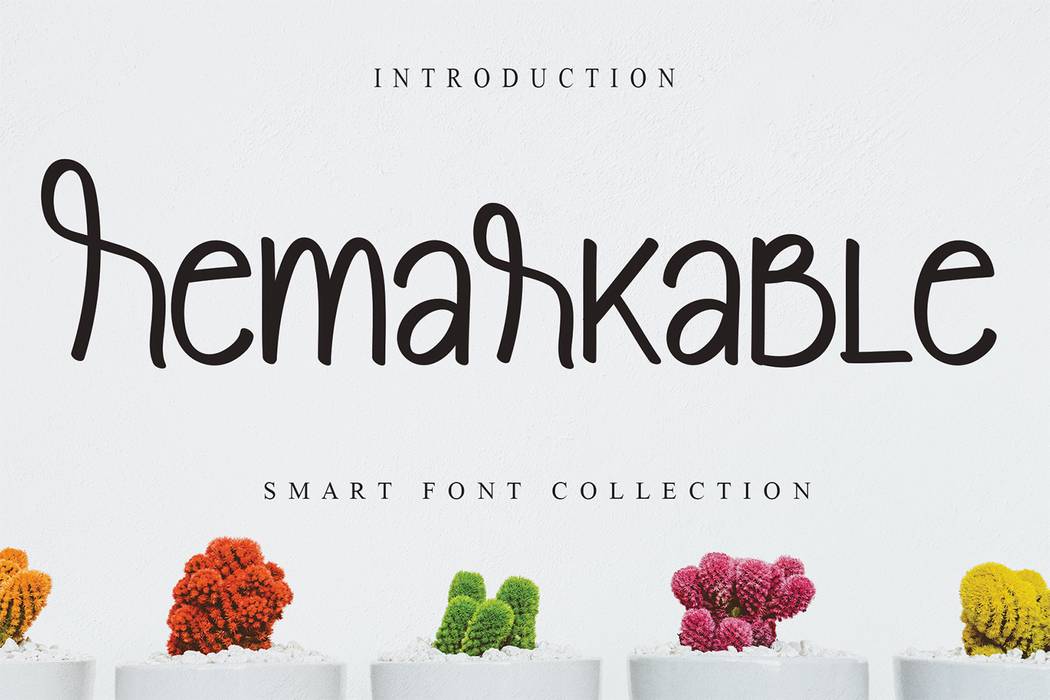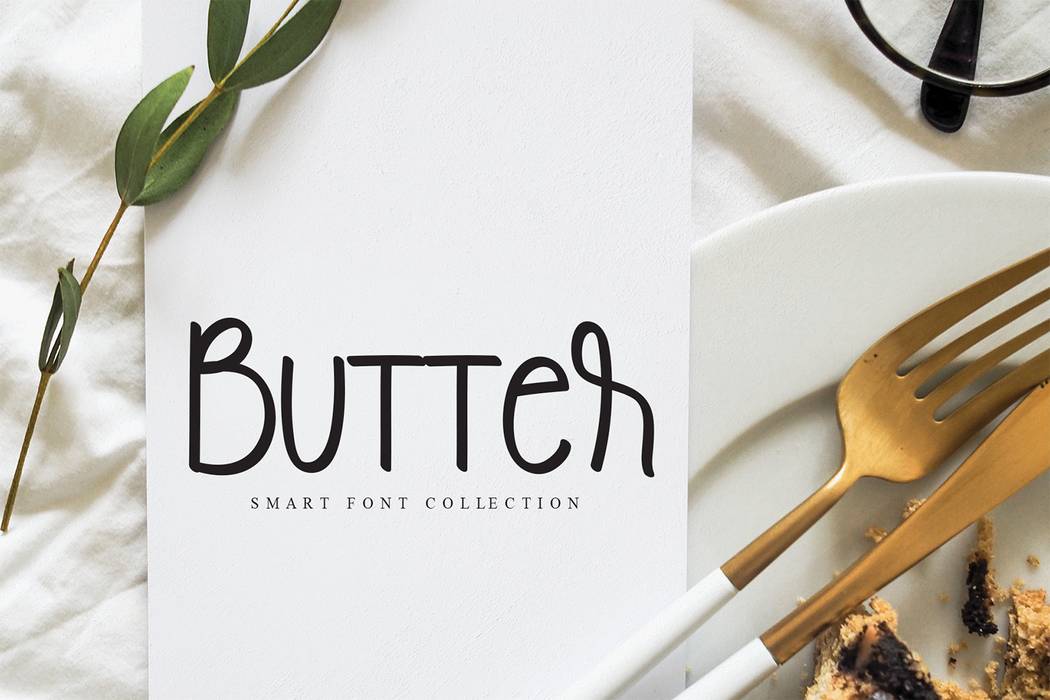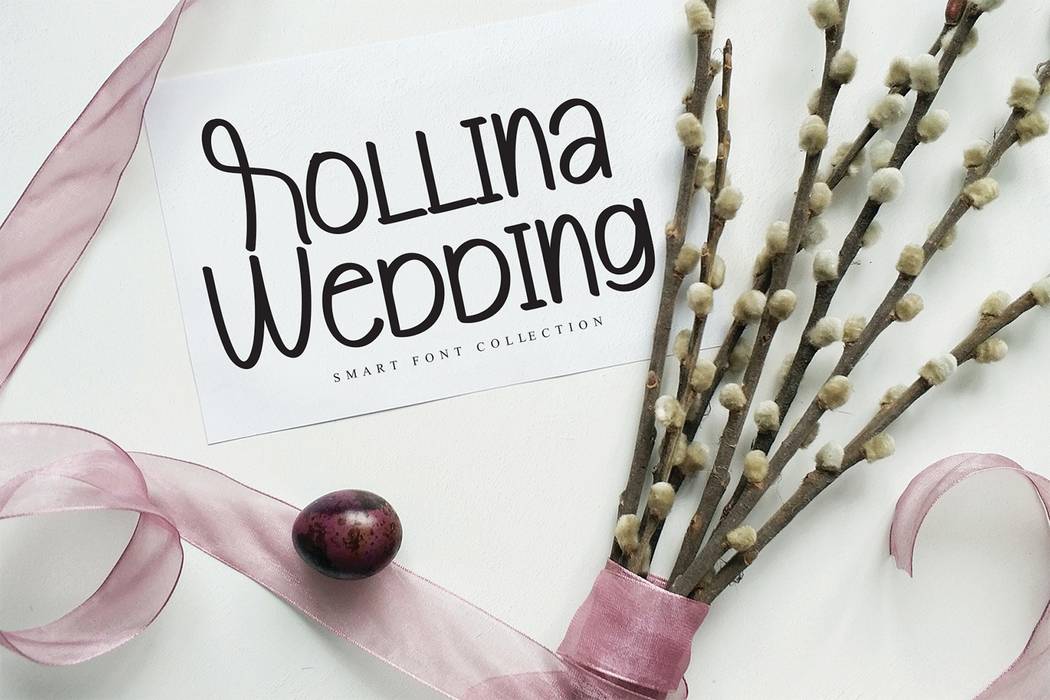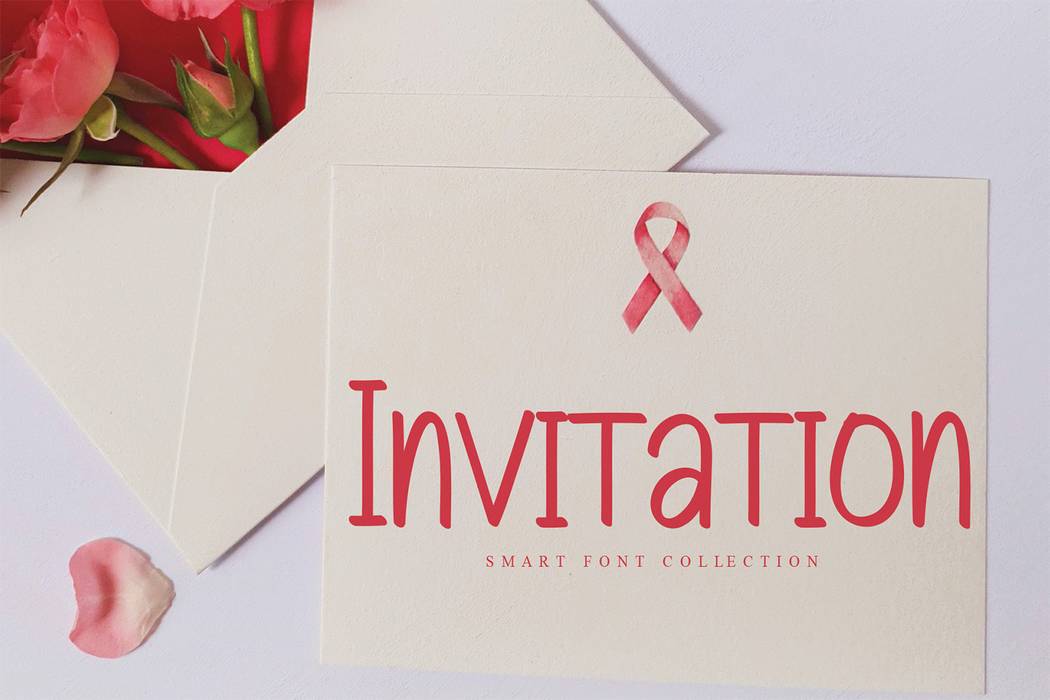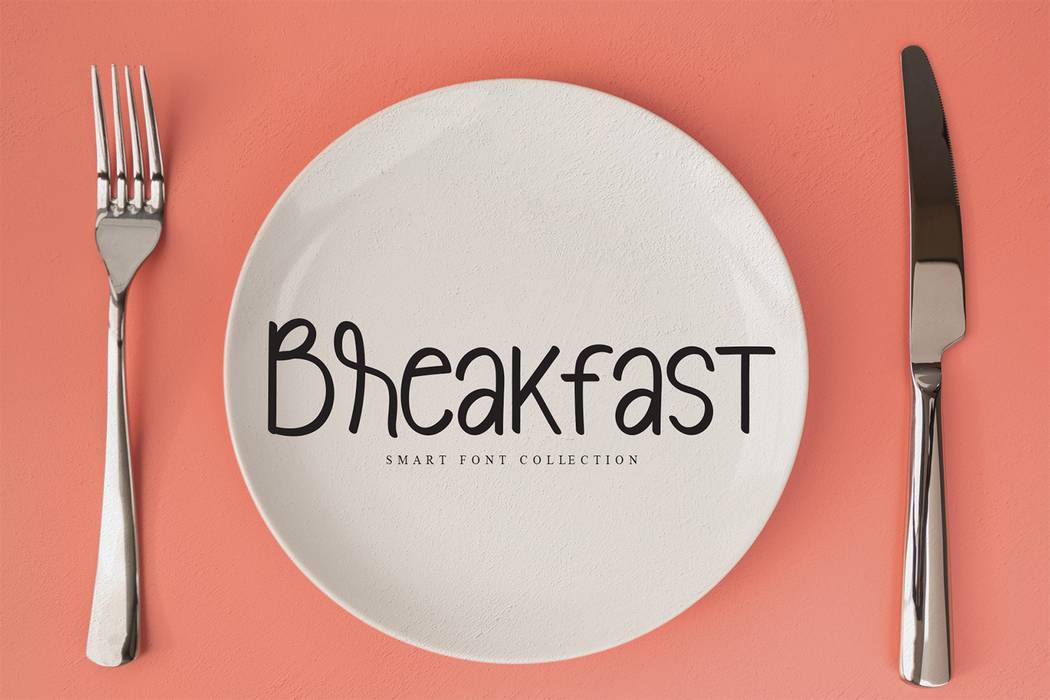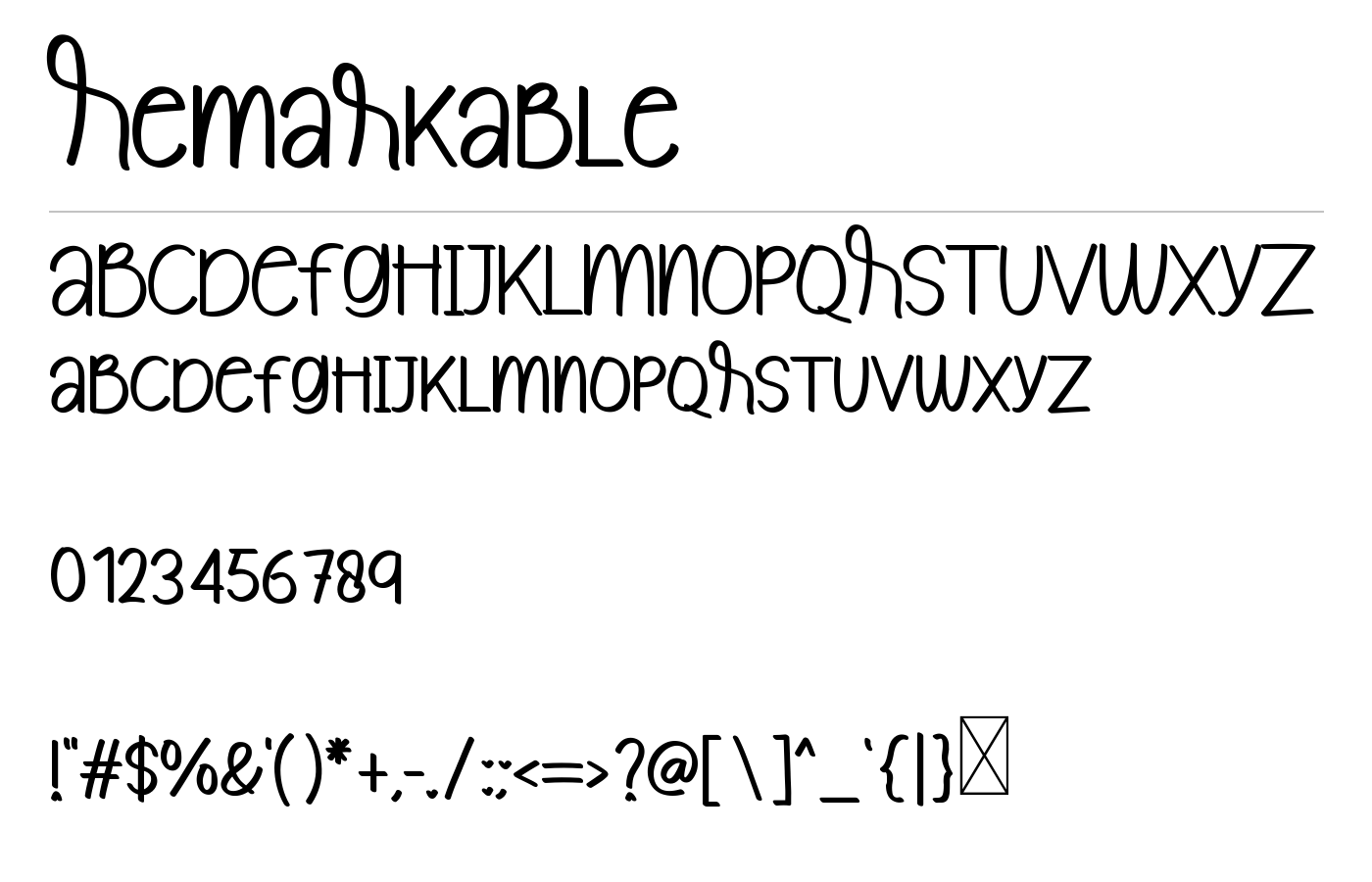
Remarkable Font is a playful, handwritten sans serif with a light weight and tall, narrow letterforms that give it a whimsical and casual feel. Its irregular strokes and quirky shapes make it ideal for creative projects looking to convey friendliness and individuality. This font works wonderfully for informal branding, children's books, and fun editorial designs where a unique, approachable style is desired.
Remarkable Font